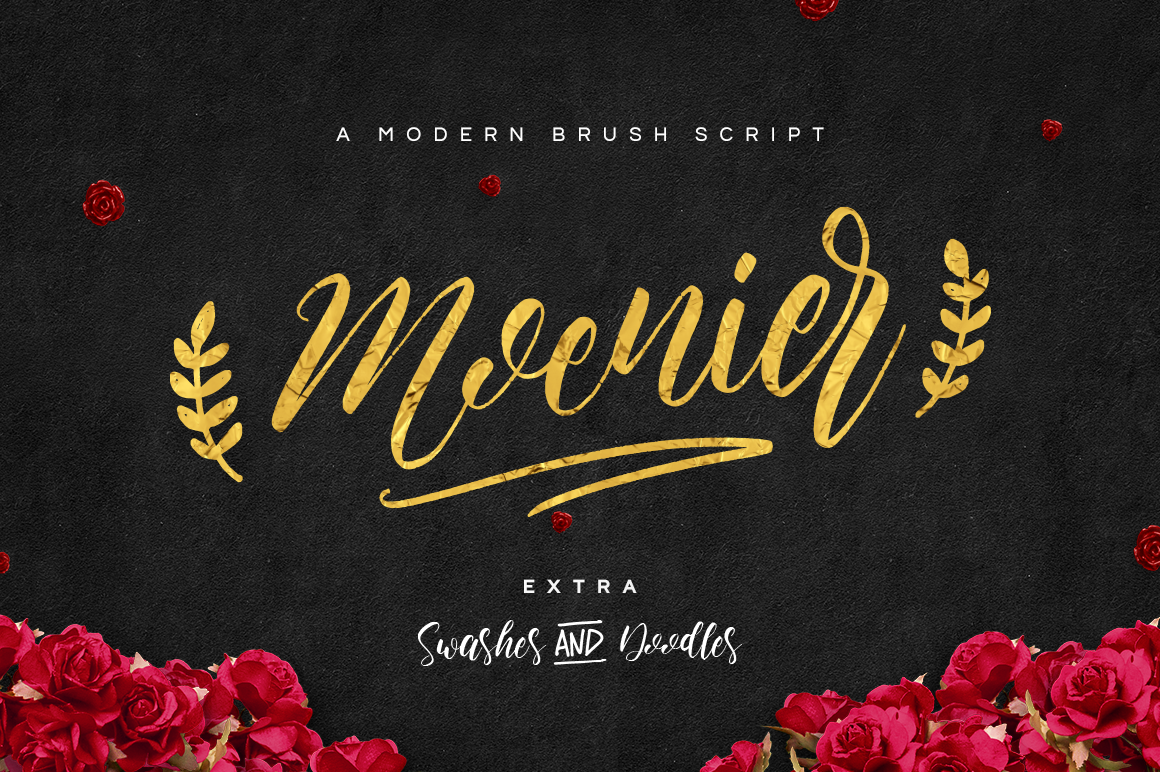
Moenier Script Font
Moenier Font | A modern brush script
Moenier is a natural warm-hearted brush font crafted beautifully. It has a flowing, compelling look that suggests stylishness, quality, and a handcrafted taste. Moenier also includes a full complement of alternates and ligatures. Also included is a set of swashes & doodles….for free!
- Moenier Regular
- Moenier Extras
- Alternate lowercase
- 10 swashes (num. 0-9)
- 26 doodles (a-z)